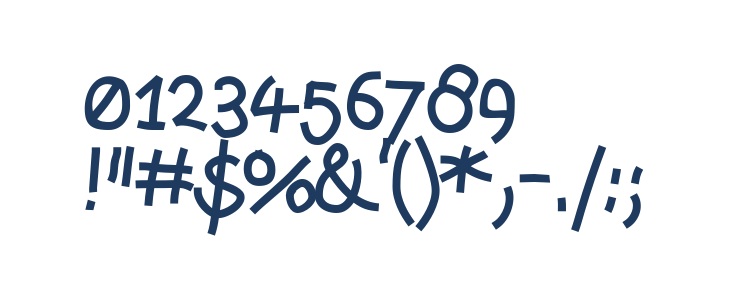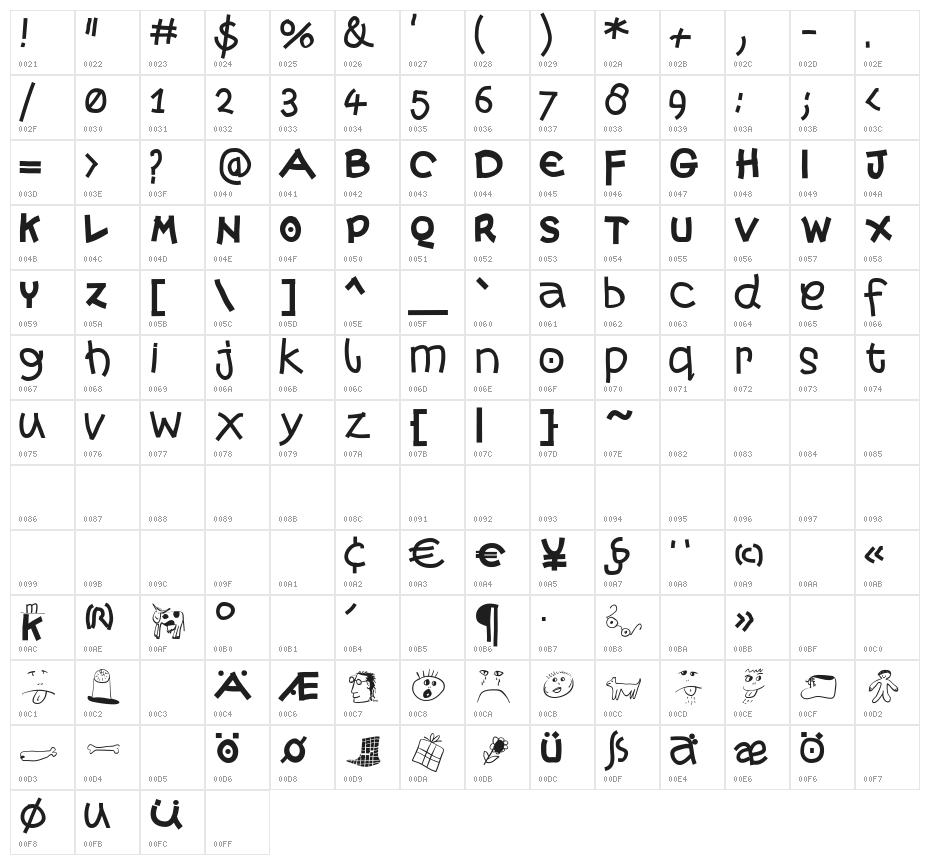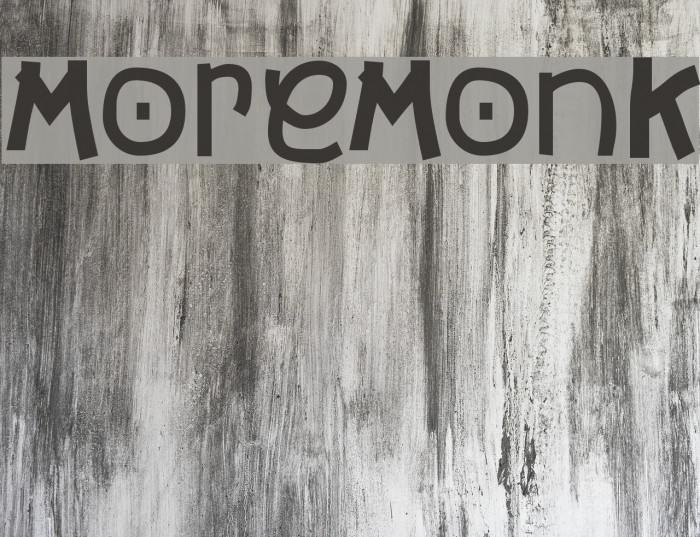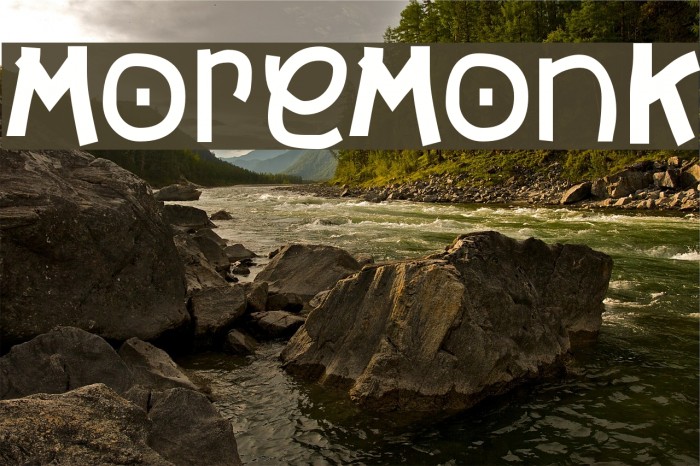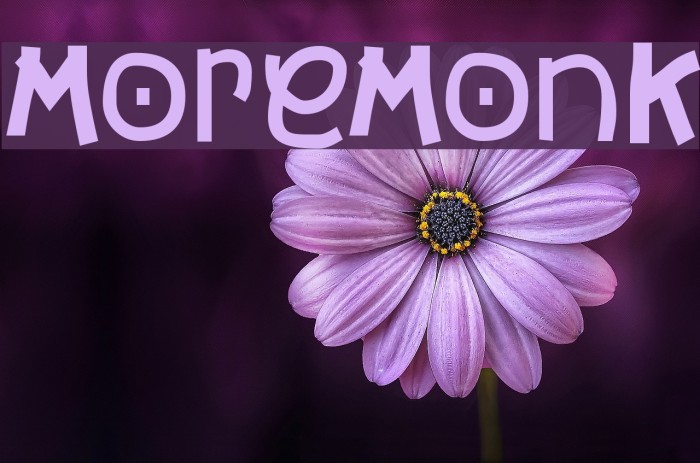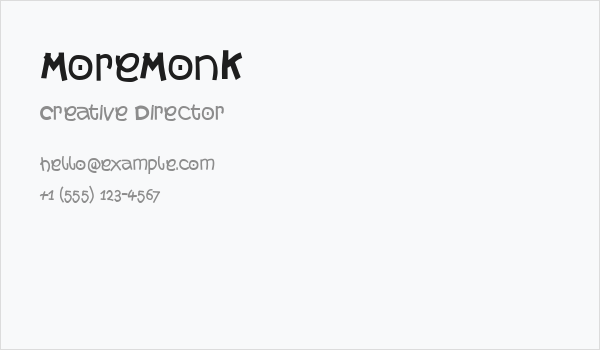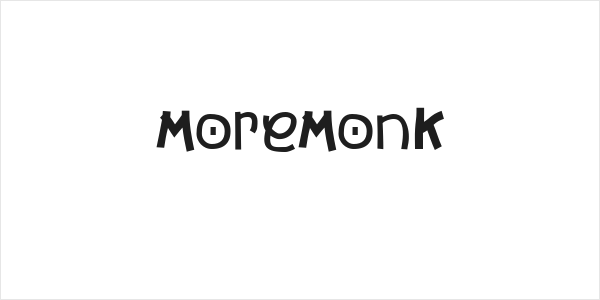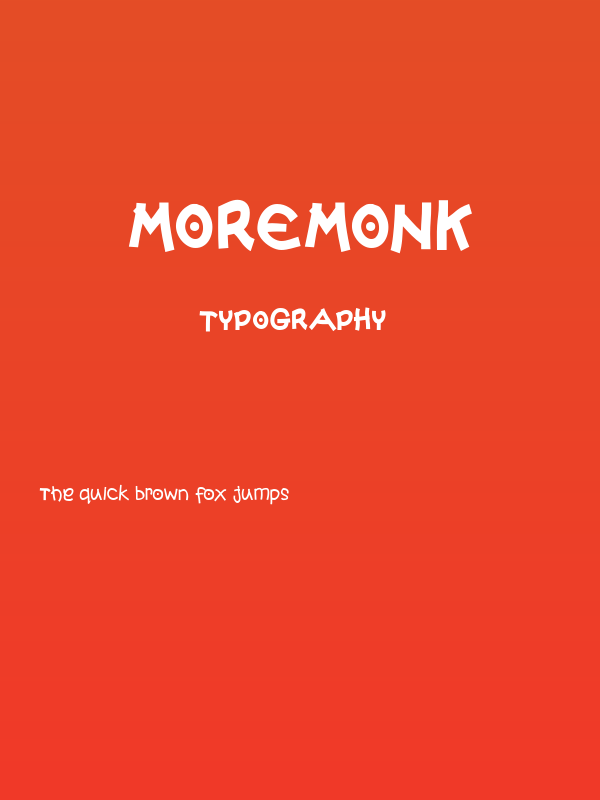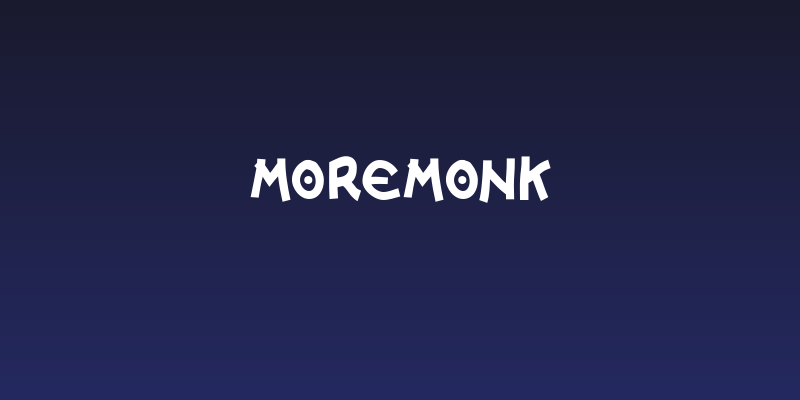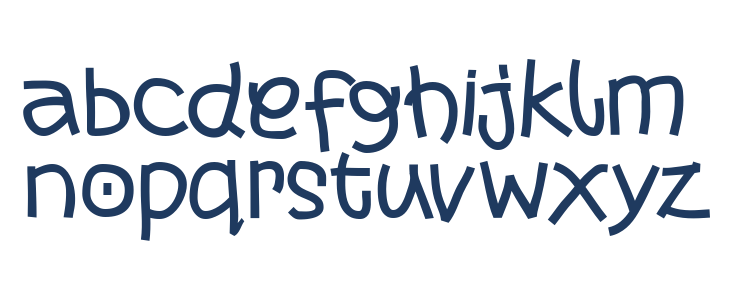
MoreMonK Font
MoreMonK Description
This font features a playful and bold style, characterized by its exaggerated curves and dynamic strokes. The uppercase letters are particularly striking, with a whimsical flair that suggests movement and energy. The lowercase letters maintain this playful aesthetic, offering a consistent look across the alphabet. The numbers and special characters follow suit, ensuring a cohesive appearance throughout. This font's unique style makes it stand out, with a slightly irregular baseline that adds to its charm. The overall design is both eye-catching and approachable, making it suitable for a variety of creative applications.
| Overall Style | Playful, Energetic |
| Proposed Projects | Ideal for children's books, playful branding, posters, and creative projects that require a fun and energetic typeface. |